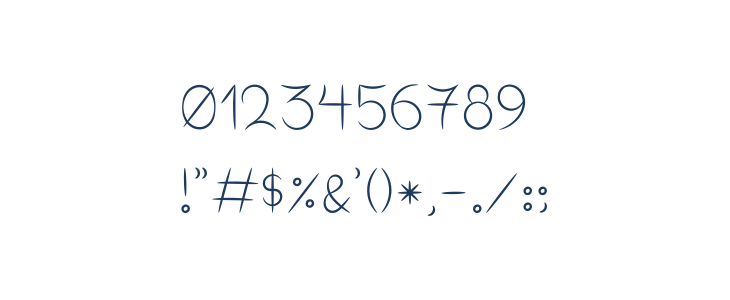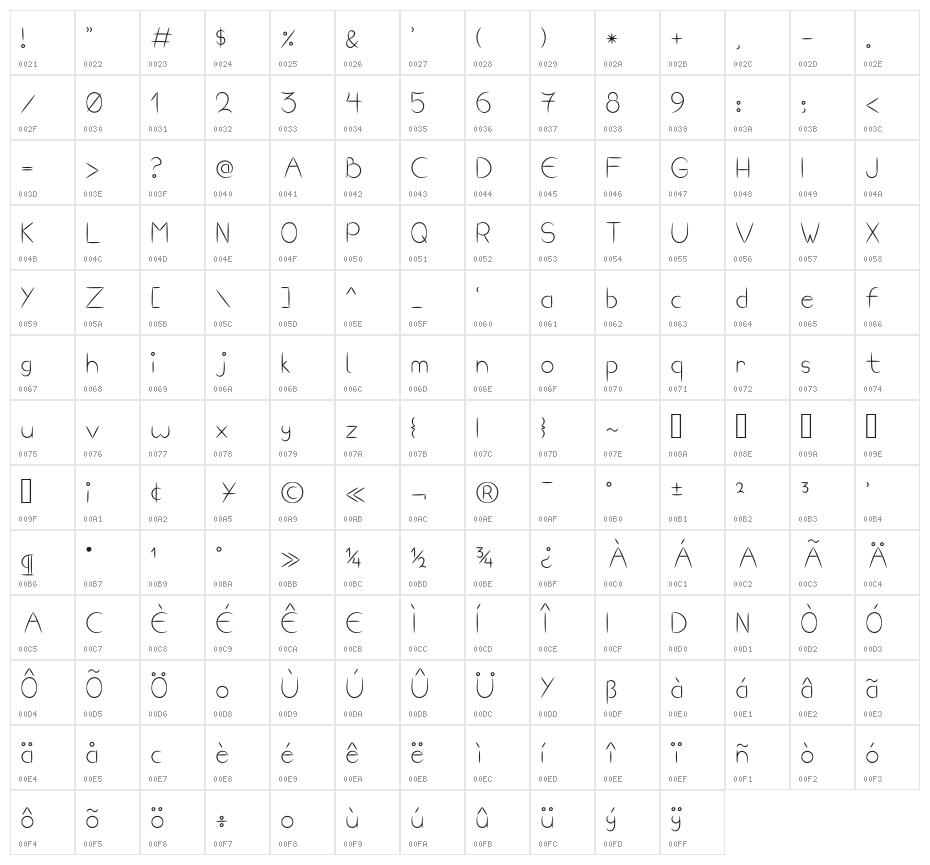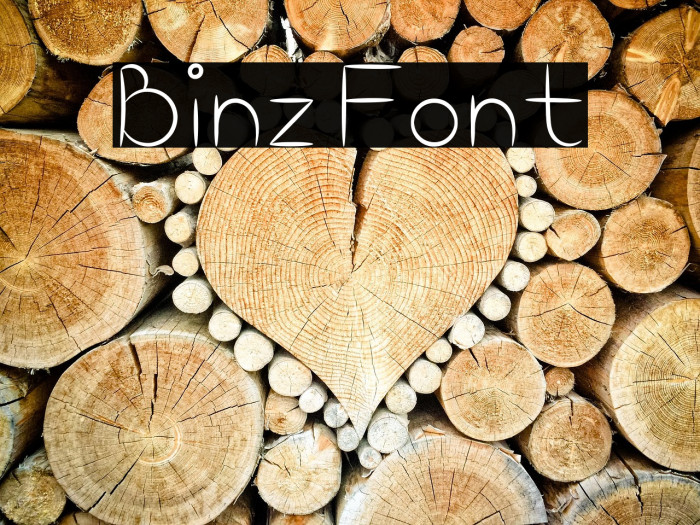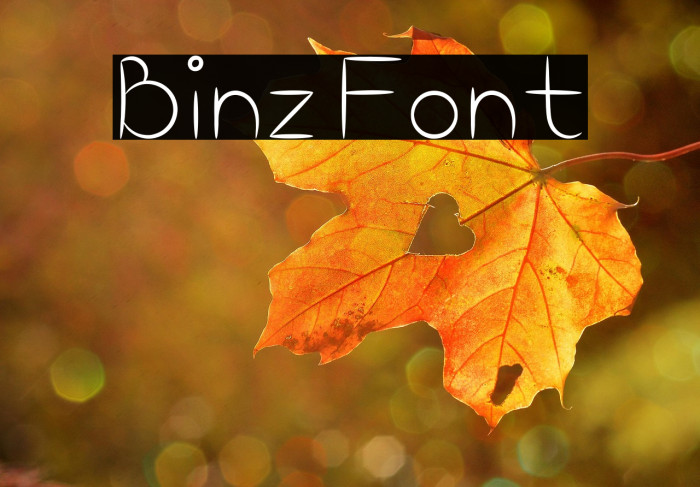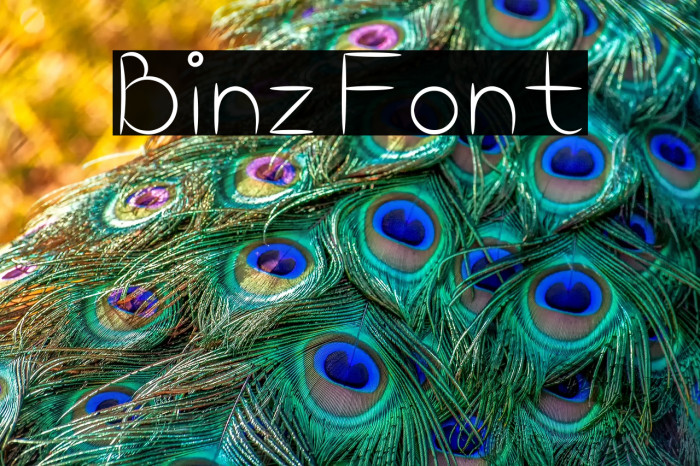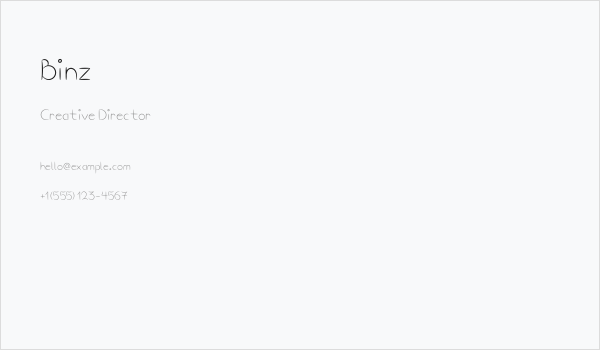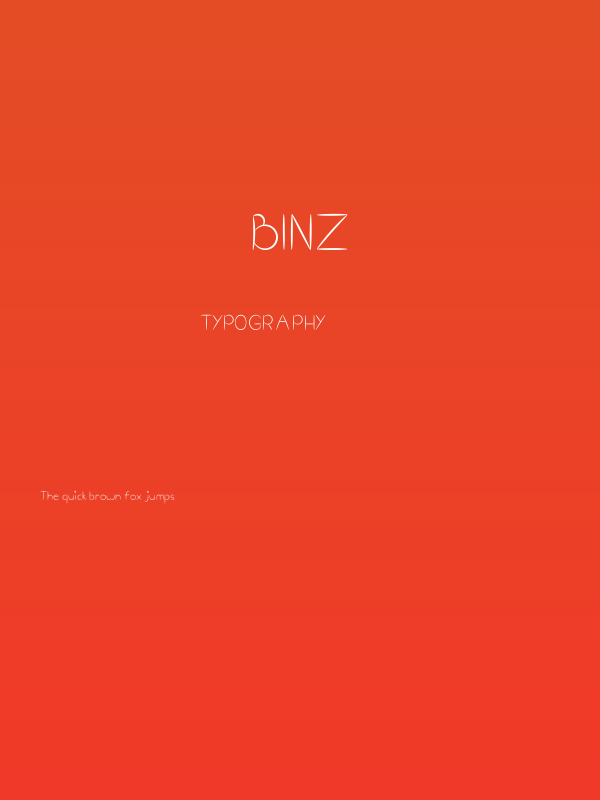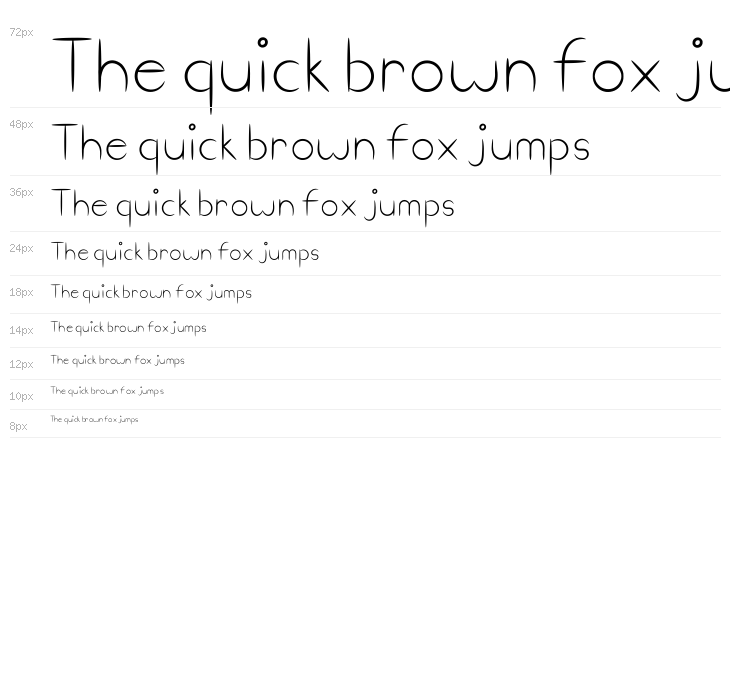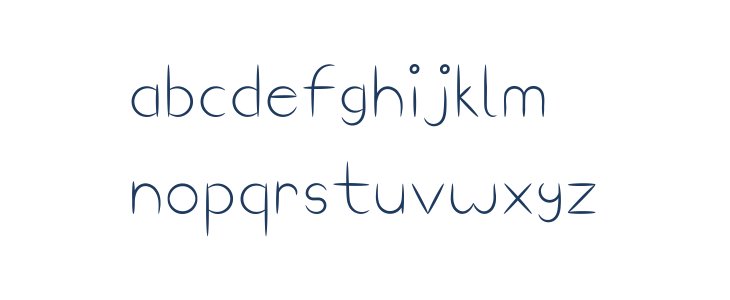
Binz Font
Binz Description
This font features a unique, playful design with a hand-drawn aesthetic. The characters are slightly irregular, giving them a whimsical and artistic feel. The strokes are thin and consistent, with a slight curve that adds a touch of elegance. The uppercase letters are distinct and bold, while the lowercase letters maintain a cohesive flow. Numbers and special characters are crafted with the same attention to detail, ensuring a harmonious look across all elements. This font is perfect for creative projects that require a personal touch.
Use CaseLogos, Headlines, Creative projects
Proposed ProjectsIdeal for children's books, greeting cards, art projects, and playful branding.